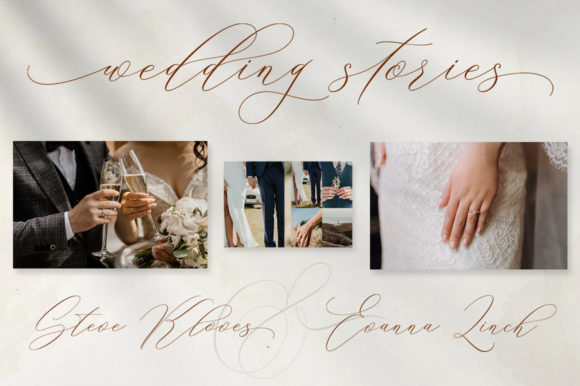
Beautiful in White Font
db-ku.com - Script & Handwritten -- Beautiful in White is a delicate and elegant handwritten font. Its distinct and well rounded letters make this font a masterpiece. Fall in love with its incredibly versatile style and use it to create spectacular designs!